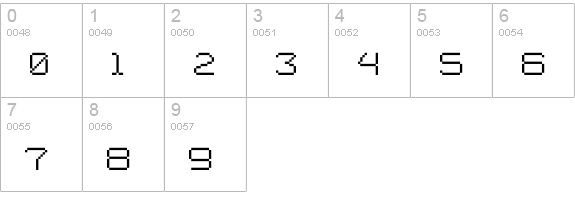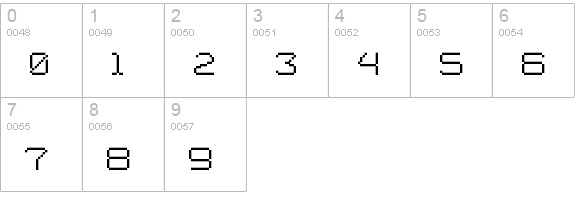
PixetlRegular Font Details
PixetlRegular is a versatile and modern font that exudes elegance and sophistication. Its clean lines and rounded corners make it perfect for a wide range of design projects, from logos to branding materials to print and digital media. The font strikes the perfect balance between professionalism and creativity, making it suitable for both corporate and artistic endeavors. What sets PixetlRegular apart is its wide range of weights and styles, allowing for endless possibilities in typography. Whether you're looking for a bold statement font or a subtle accent typeface, PixetlRegular has you covered. The best part? PixetlRegular is completely free to download at FontsMarket.com, making it accessible to designers of all levels. With its seamless compatibility across different platforms and applications, PixetlRegular is sure to become a staple in your font library. Don't miss out on this opportunity to elevate your designs with PixetlRegular – download it today and unleash your creativity!